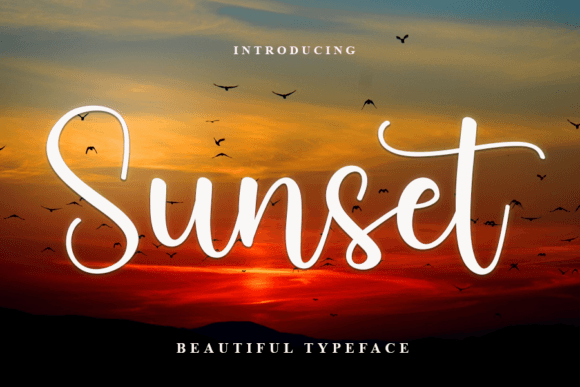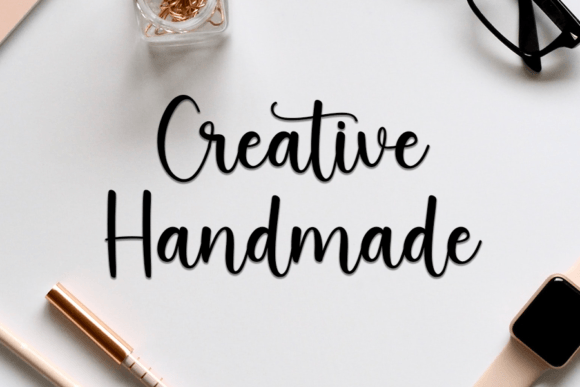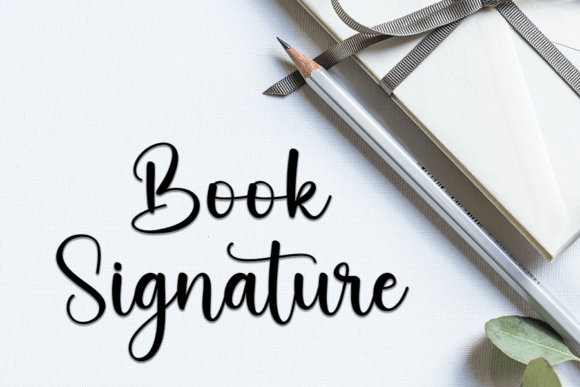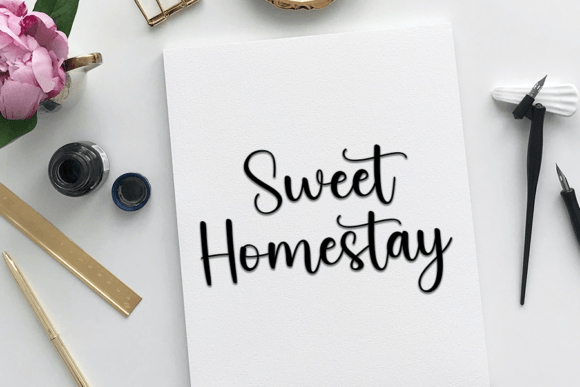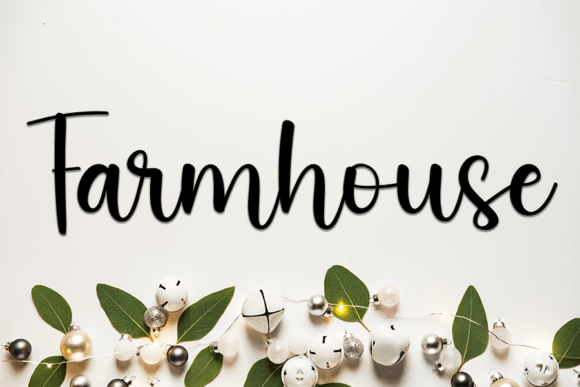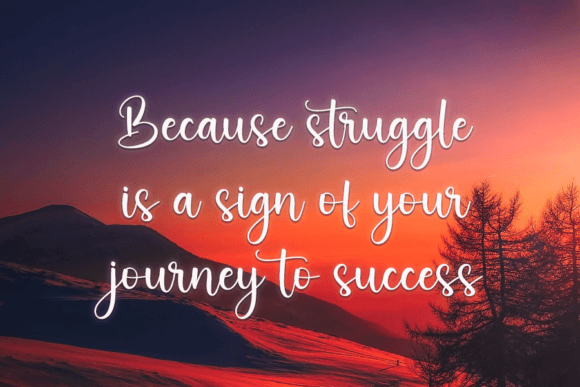
Sunset Font
Sunset: A Delicate Handwritten Font for Cool and Creative Projects
If you’re looking for a delicate handwritten font that combines personality with elegance, Sunset might be exactly what you need. Carefully crafted to deliver a soft yet expressive feel, this typeface adds an authentic and personal touch to every design.
With its natural strokes and graceful flow, Sunset stands out in a world full of rigid typefaces. It makes your message feel human, warm, and visually unique.
Handcrafted Elegance with a Cool Twist
Sunset isn’t just another handwriting font—it was created with attention to detail and a genuine sense of character. Each letter is drawn to reflect balance, creativity, and emotion, making the font ideal for a wide range of projects.
Whether you’re designing for a brand or expressing personal messages, Sunset offers just the right combination of subtlety and charm.
Popular use cases include:
• Invitations for weddings, parties, or events
• Organic food packaging and labels
• Restaurant menus and café chalkboards
• Social media content and Instagram posts
• Greeting cards, thank-you notes, and DIY crafts
• Stylish blog headers and website titles
Thanks to its refined linework, Sunset is easy on the eyes and perfect for both print and digital formats.
Why Choose the Sunset Font?
A good handwritten font should not only look beautiful but also be practical and accessible. Sunset provides both aesthetics and usability, making it a favorite among designers.
Here’s what makes Sunset an ideal delicate handwritten font:
• Light, airy strokes for a handwritten feel
• Elegant curves with clean line consistency
These features ensure that you can create polished designs quickly and without hassle.
Bring a Personal Touch to Your Typography
Fonts do more than carry words—they create atmosphere. Sunset’s soft personality helps your audience feel connected and welcomed. It can be used to make product labels feel organic, event invitations feel heartfelt, or brand messaging feel intimate and true.
Here are a few creative pairing ideas:
• Combine it with minimalist sans-serif fonts for contrast
• Use textured backgrounds or illustrations for added flair
• Overlay on warm-toned images for a nostalgic effect
If you’re searching for a delicate handwritten font that delivers style, clarity, and emotional impact, Sunset is an excellent choice. Whether you’re working on branding, packaging, or personal design, Sunset helps you create visuals that stand out and speak sincerely.